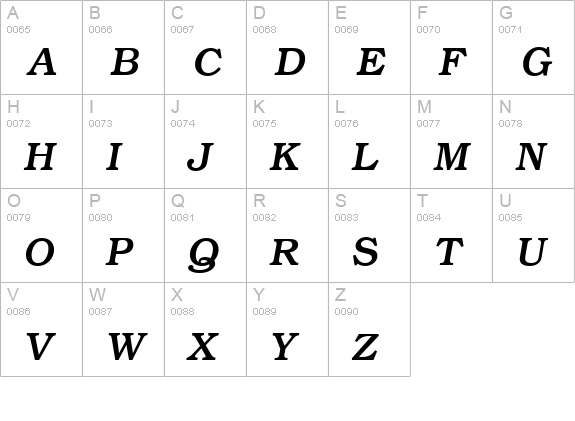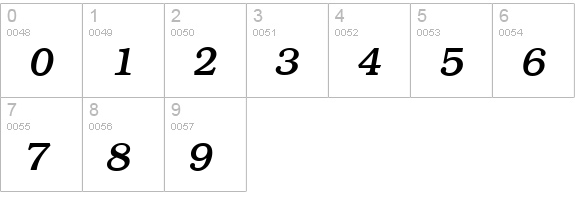
Book-Italic is a comfortable, highly readable, italic variant in the Book typeface family \xE2\x80\x94 well suited to long-form body text, articles, and editorial content.
Introducing Book-Italic font, a sleek and elegant typeface perfect for adding a touch of sophistication to your projects. The italicized design of this font exudes a sense of style and grace, making it ideal for various creative endeavors. Whether you're working on a book cover, website design, or branding materials, Book-Italic font will elevate your content with its unique flair. And the best part? Book-Italic font is completely free to download at FontsMarket.com! With just a few clicks, you can enhance your projects with this beautiful typeface without breaking the bank. Don't miss out on this opportunity to elevate your design work with the timeless charm of Book-Italic font. Download it today and start creating stunning visuals that stand out from the crowd.